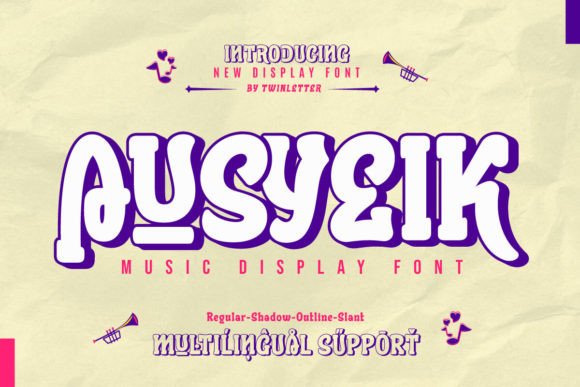
Ausyeik Font: The Ultimate Typographic Art for Music-Style Displays
The Ausyeik font is a charming work of typographic art, designed specifically for projects that require a music-style display, festivals, and special events. This beautiful font brings a magical touch to your designs, making it the perfect choice for anyone looking to add a touch of elegance and sophistication to their work.
Key Features of Ausyeik Font
- Multi-Style Font Family: The Ausyeik font family includes regular, shadow, outline, and Slant styles, providing maximum flexibility for creating unique and memorable messages.
- Ligatures and Alternates: Ausyeik features ligatures and alternates that give each letter an artistic and exclusive touch, allowing for unlimited creative freedom.
- Multi-Language Support: This font supports multiple languages, making it the perfect choice to reach a global audience.
The Benefits of Using Ausyeik Font in Your Designs
The Ausyeik font brings an unrivaled feeling of euphoria and joy to your designs, bringing the atmosphere of festivals and special events to life. With its charming and artistic characters, Ausyeik is the perfect choice for:
- Music festivals and concerts
- Special events and parties
- Music-style displays and posters
- Wedding and event invitations
- Social media graphics and posts
The Art of Typographic Design: What Makes Ausyeik Stand Out
The Ausyeik font is a masterpiece of typographic art, with each character carefully crafted to bring a touch of magic to your designs. The font’s unique features, such as ligatures and alternates, give each letter an artistic and exclusive touch, making it perfect for projects that require a music-style display.
The font’s design is inspired by the world of music and festivals, with each character radiating a sense of joy and euphoria. The Ausyeik font is more than just a font – it’s an experience that brings the atmosphere of festivals and special events to life in your designs.
Reaching a Global Audience with Ausyeik Font
One of the key benefits of the Ausyeik font is its multi-language support. This makes it the perfect choice for designers who want to reach a global audience with their work. Whether you’re designing for a music festival in Europe, a concert in Asia, or a special event in the Americas, Ausyeik font has got you covered.
With Ausyeik font, you can create designs that transcend language barriers and cultural boundaries, making it the perfect choice for global brands and designers.
Unlimited Creative Freedom with Ausyeik Font
The Ausyeik font offers unlimited creative freedom, allowing you to come up with amazing designs that showcase your creativity and style. With its unique features, such as ligatures and alternates, you can experiment with different design combinations to create something truly unique and memorable.
Whether you’re a professional designer or a DIY enthusiast, Ausyeik font provides the perfect platform to express your creativity and bring your design vision to life.
Celebrating the Music-Style Display with Ausyeik Font
The Ausyeik font is designed specifically for projects that require a music-style display, making it the perfect choice for music festivals, concerts, and special events. The font’s unique features and artistic characters bring the atmosphere of music and festivals to life in your designs.
With Ausyeik font, you can create designs that celebrate the music-style display in all its glory, making it the perfect choice for anyone looking to add a touch of elegance and sophistication to their work.
Why Choose Ausyeik Font?
So, why choose Ausyeik font for your design projects? Here are just a few reasons:
- Unique and artistic characters
- Multi-style font family for maximum flexibility
- Ligatures and alternates for unlimited creative freedom
- Multi-language support for global reach
- Perfect for music-style displays and festivals
In conclusion, the Ausyeik font is a charming work of typographic art that brings a magical touch to your designs. With its unique features, artistic characters, and multi-language support, Ausyeik font is the perfect choice for projects that require a music-style display, festivals, and special events.
Whether you’re a professional designer or a DIY enthusiast, Ausyeik font provides the perfect platform to express your creativity and bring your design vision to life. So, if you’re looking for a font that celebrates the music-style display in all its glory, Ausyeik is the best choice that you will never regret.